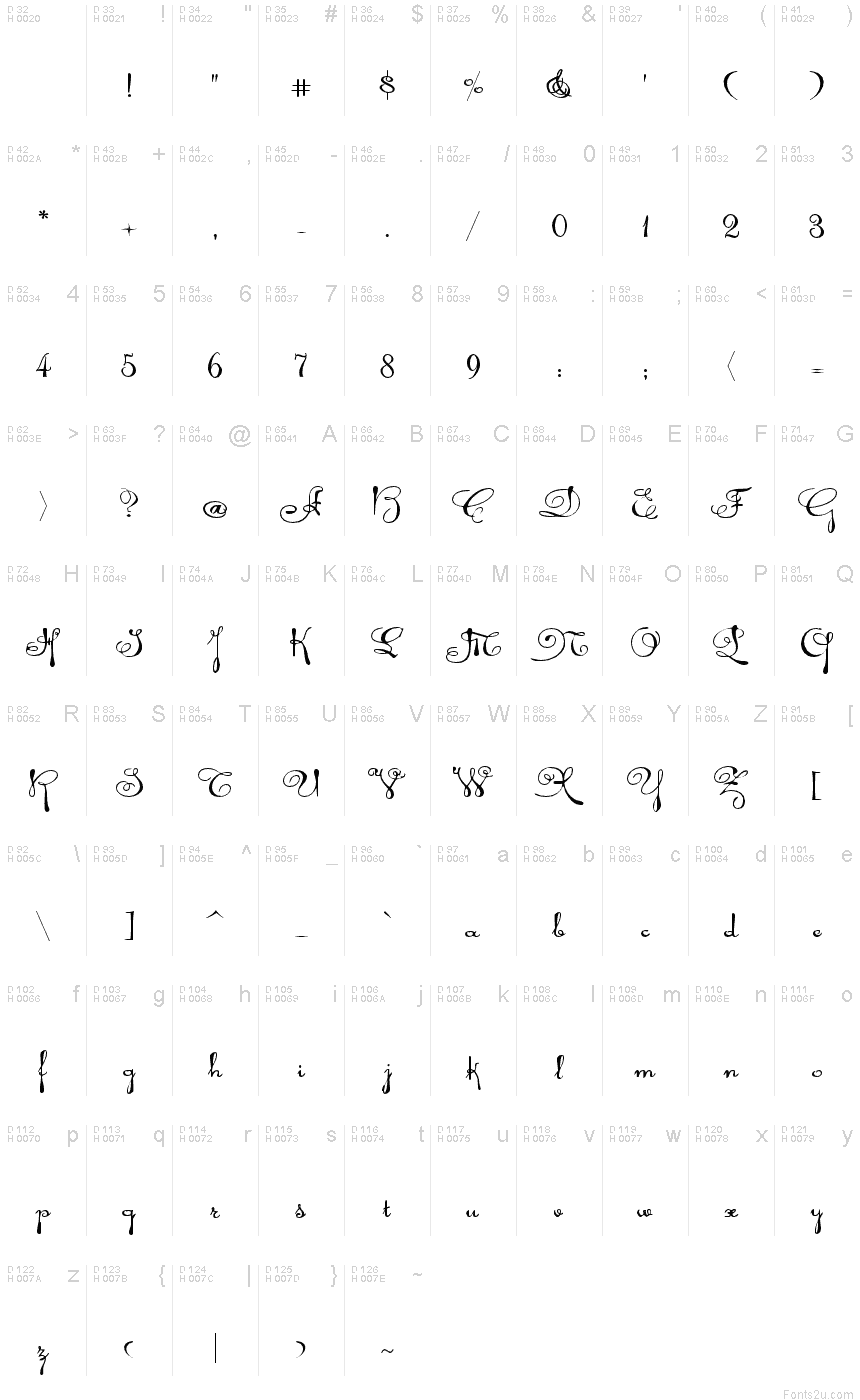
Rhalina Expanded is a free calligraphic script by Daniel Zadorozny of Iconian Fonts. Its looping capitals stretch into extravagant, ribbonlike swashes.
Boutique fashion labels and beauty brands can use its poised, highly ornamented lettering for logos, high-end product packaging, event invitations, and promotional posters. The sweeping loops echo curling ribbons, fine-line illustration, and decorative borders, so the lettering can become part of the imagery in romantic campaigns and wedding stationery.
Rhalina Expanded